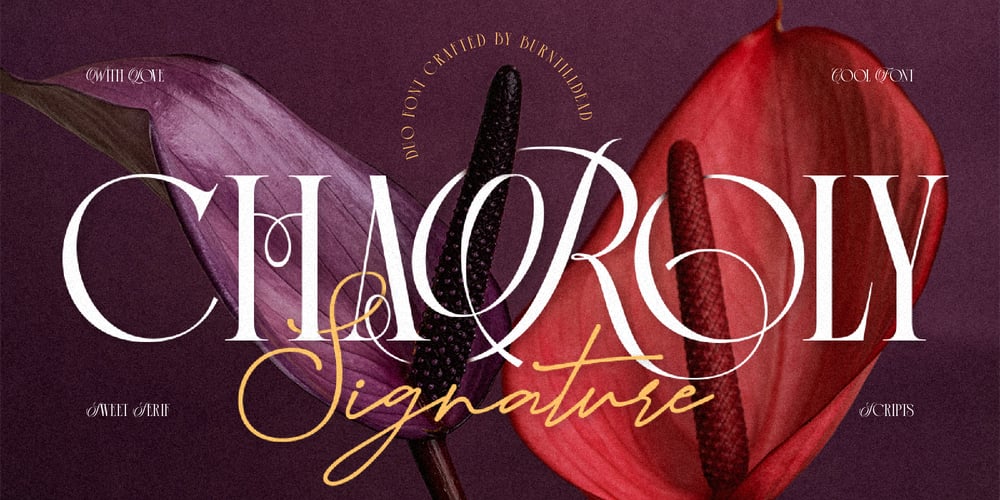
Charoly
Charoly font
Charoly Font Family was designed by Eric Kurniawan and published by Burntilldead. Charoly contains 2 styles and family package options. Introducing, Charoly Signature, a harmonious blend of classic elegant serif with charm of script. This duo font creating stunning combination that works effortlessly across both print and digital design project. Whether you’re designing for Christmas, weddings or any special occasion. Ideal for invitation, greeting cards, branding and many more. Features: A – Z set (Uppercase & Lowercase) Number Punctuation Ligatures Alternates Multilingual Charoly Signature Characters Map